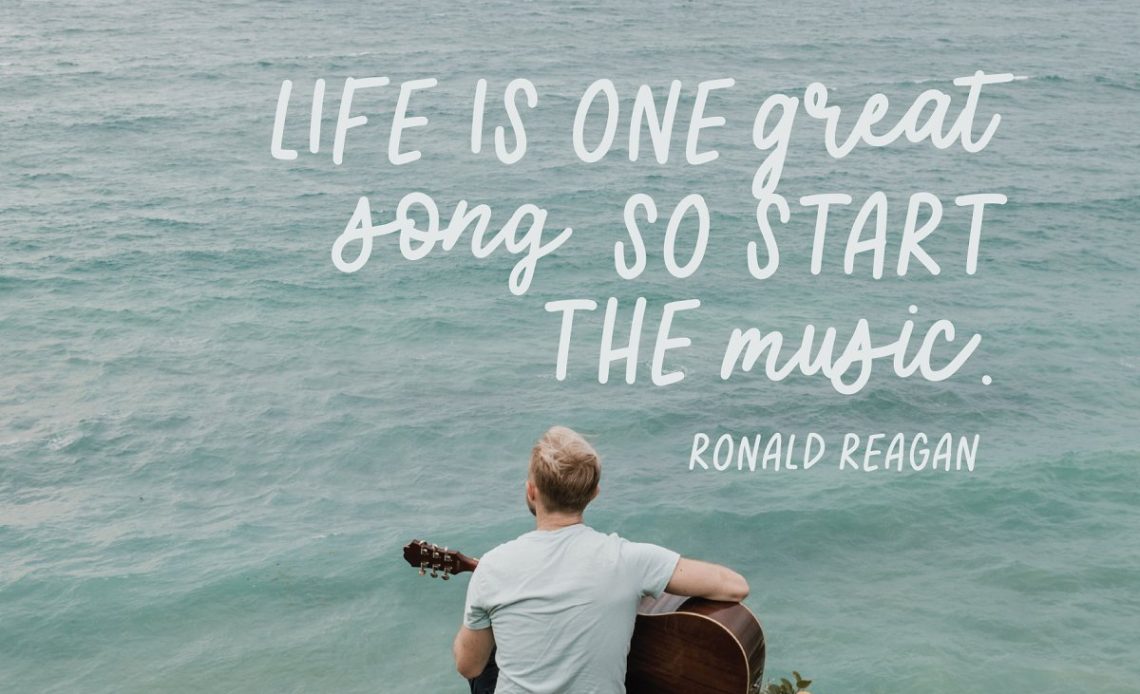
Introducing San Clemente Font Duo, the perfect script font for minimalist lovers! Created by the talented Rachel Kick, this font family offers a unique and eye-catching monoline set that is sure to elevate your designs to the next level.
One of the best features of San Clemente Font Duo is its consistent weight. With two fonts that are the same weight, they look amazing together at the same size. The lowercase letters connect to each other, while the uppercase remains separate, giving you the freedom to choose which letters to connect. This flexibility allows you to create a hand-drawn, personalized look every time you use the font.
The hand-drawn design of San Clemente Font Duo adds its own unique charm to any project. The imperfect, organic feel of the font makes it an ideal choice for designers looking to add a personal touch to their work. It's also simple enough to read clearly, making it perfect for a wide range of applications.
Whether you're designing a logo, creating branding materials, or crafting a social media post, San Clemente Font Duo has everything you need to make your designs stand out. With its minimalist aesthetic and customizable features, it's the perfect choice for designers looking to create something truly unique and eye-catching.